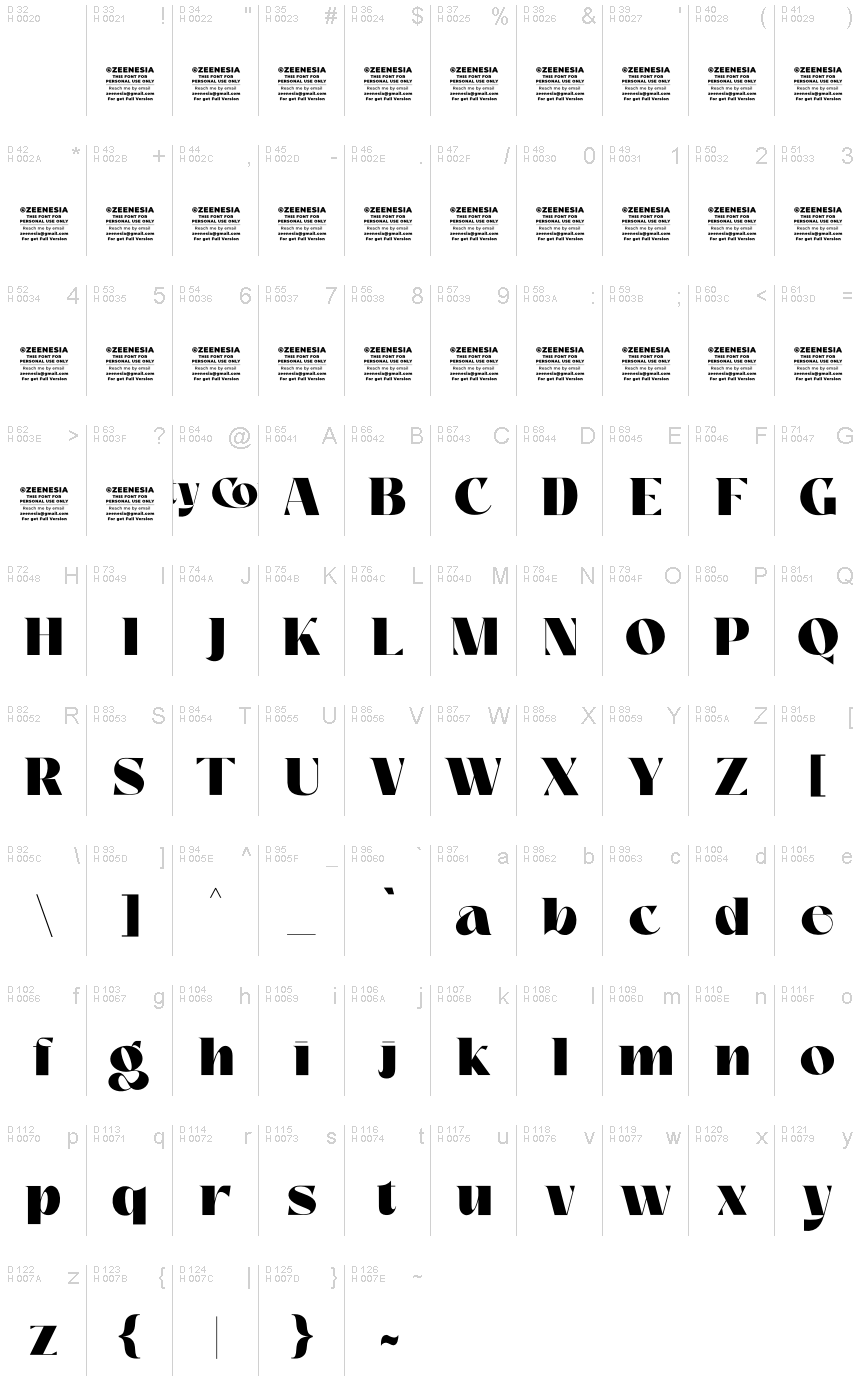
Mighty Courage Personal Use Onl
Mighty Courage stands as a testament to strength and determination, crafted by the creative minds at Zeenesia Studio. This bold serif font carries a sense of grandeur, its sturdy letters exuding confidence with every curve and line. Its robust stature is softened by subtle serifs that add a touch of elegance, making it both commanding and refined.
Perfect for headlines that demand attention or branding projects that require an air of sophistication, Mighty Courage is versatile enough to elevate book covers, editorial spreads, and even upscale packaging designs. Its distinct presence ensures memorable visuals that resonate with strength and timeless appeal.